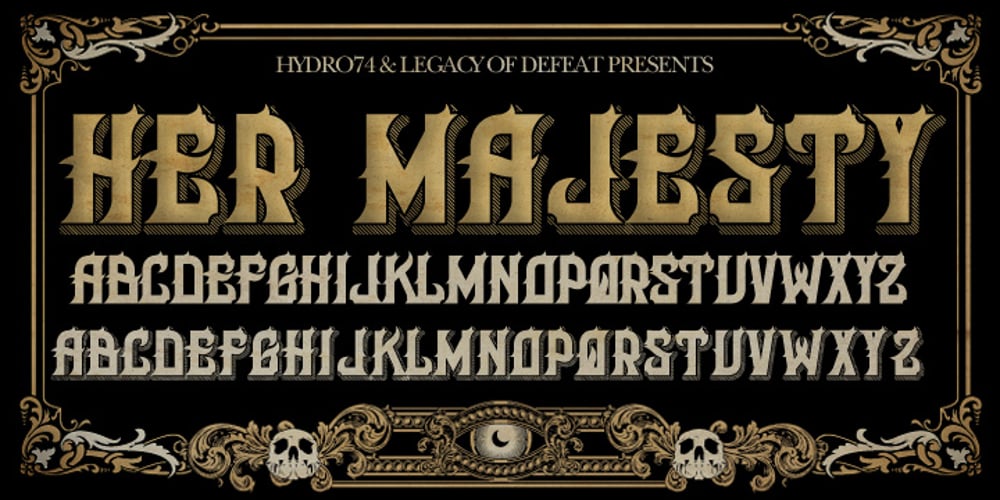
H74 Her Majesty Font Family was designed by Joshua M. Smith and published by Hydro74. H74 Her Majesty contains 2 styles and family package options. Her Majesty is a turn of the century structure mixed with a modern approach.